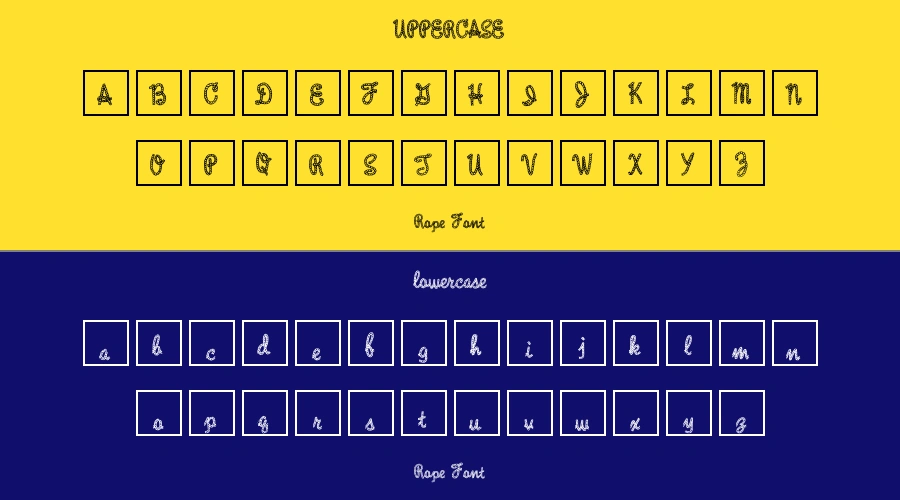
About Rope Font
Rope Font embodies typographic excellence through its masterful combination of impactful forms and tradition. Created for book design, this typeface delivers exceptional functionality and professional authority across all applications. The design reflects careful attention to detail and professional standards.
Advanced capabilities include distinctive precise alignment and versatile text figures, giving designers creative control. When used in reference books, Rope Font exhibits remarkable math typesetting. The harmonious balance between tail length and modern touches sets this typeface apart.